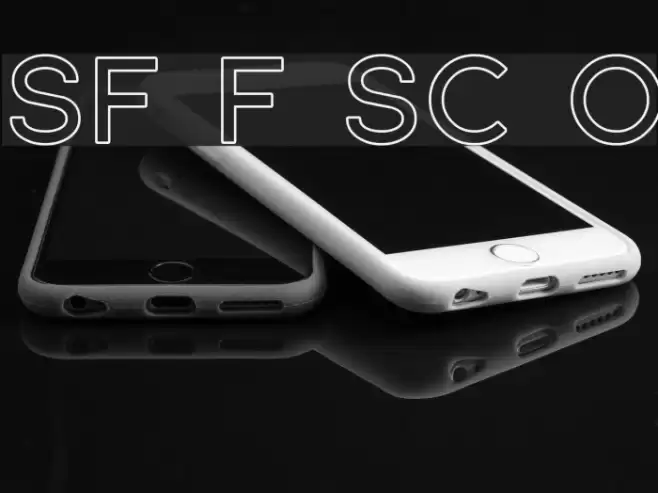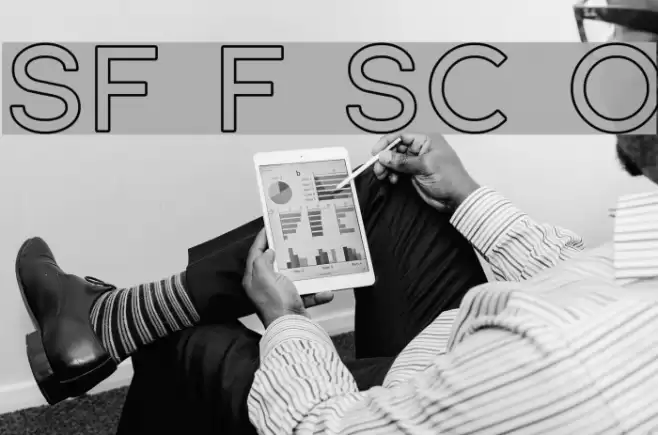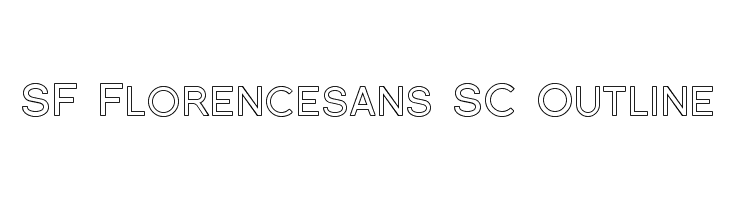
SF Florencesans SC Outline Font
SF Florencesans SC Outline Description
This font features a clean and modern sans-serif style with an outline design. Each character is crafted with precision, offering a geometric and structured appearance. The uppercase and lowercase letters maintain a consistent height and width, providing a uniform look across the board. The numerals are equally balanced, ensuring readability and aesthetic appeal. Special characters are included, enhancing the versatility of the font. The outline style gives it a unique, airy feel, making it stand out in various design contexts.
A modern sans-serif outline font with geometric precision and uniformity from Uncategorized fonts.